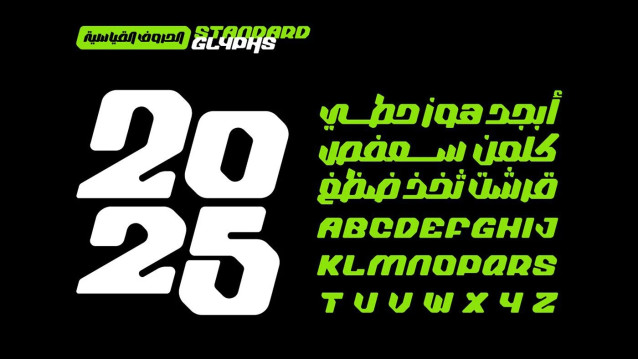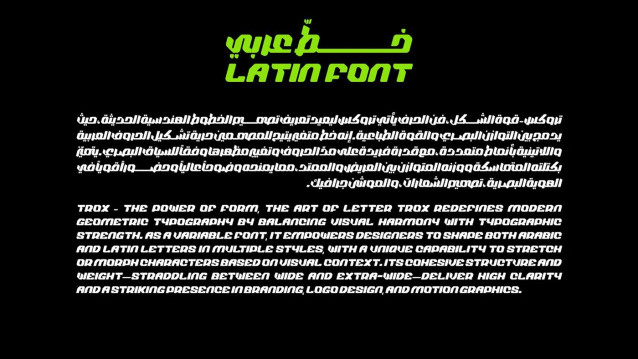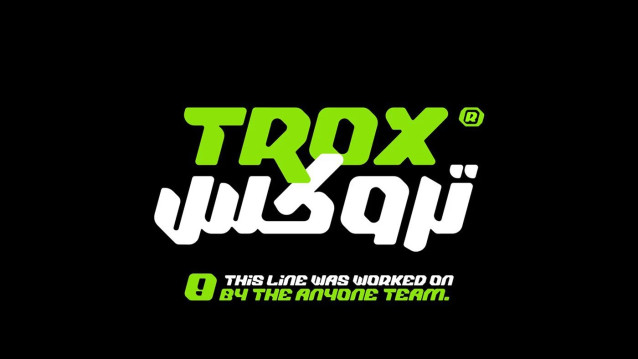
Trox Futuristic Font – the power of form, the art of letter. Trox redefines modern geometric typography by balancing visual harmony with typographic strength. As a variable font, it empowers designers to shape both Arabic and Latin letters in multiple styles, with a unique capability to stretch or morph characters based on visual context.
Its cohesive structure and weight-straddling between wide and extra-wide-deliver high clarity and a striking presence in branding, logo design, and motion graphics.
Trox Futuristic Font
| Classification: | Display Fonts, Sans Serif Fonts, Techno / Futuristic Fonts |